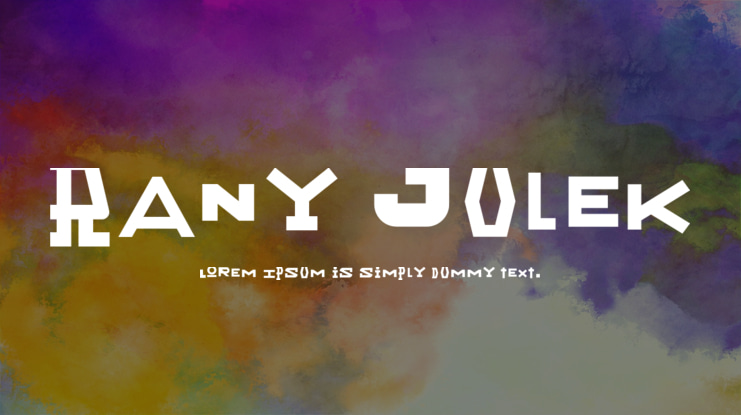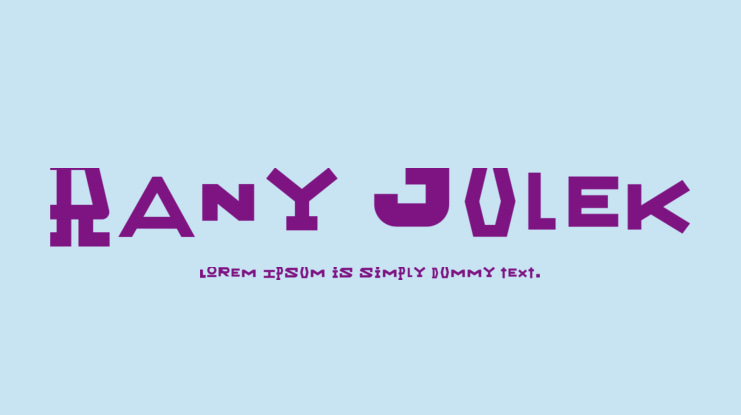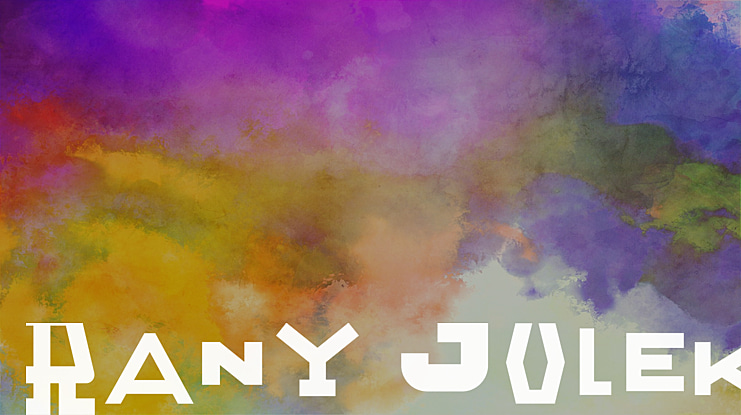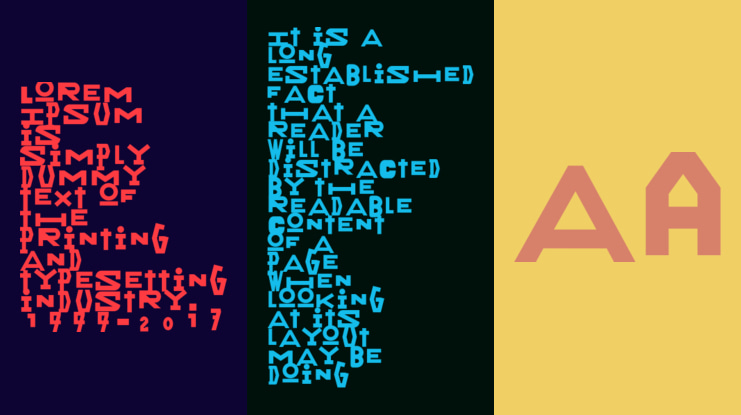
Rany Julek! (My goodness, Julian! - free translation) is a font originally inspired by the letters created by Władysław Strzemiński (Julian Przyboś, "Z Ponad", 1930) and its development into the complete font designed by Artur Frankowski (fontarte.com). I strongly recommend all of you to familiarize yourself with the cover of "Z ponad" as well as the FA Julian font. Extremely good stuff. As I was making the letters from the scratch, still I tried to maintain the artistic mood of the previous projects. Rany Julek! font was designed for a children's book and is released for free for non-commercial use only. For almost 15 years, the author of this font has been an independent and active graffiti writer as well as a graphic designer.